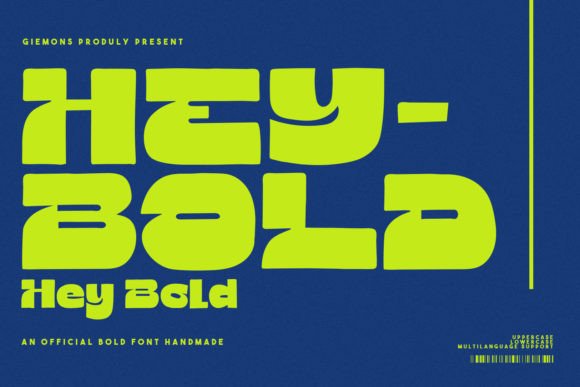
Journey into the world of bold and expressive typography with Hey Bold Font, the ultimate display font designed to captivate and inspire. Created by the renowned Giemons, this font is a visual masterpiece that combines modern aesthetics with playful charm. Its striking and chunky design is guaranteed to command attention, making it the perfect choice for a diverse array of projects.
Immerse yourself in the world of Hey Bold Font, where letters dance with confidence and personality. Its thick and clean lines create a strong and commanding presence, while its geometric shapes and unique curves infuse it with a touch of whimsy and playfulness. This remarkable font is crafted to leave a lasting impression, elevating your designs to new heights of visual appeal.
Unleash your creativity with Hey Bold Font, the perfect companion for a multitude of design endeavors. Create captivating logos that exude strength and boldness, design posters that demand attention, or craft social media graphics that ignite engagement. Its versatility knows no bounds, making it the ideal choice for both personal and professional projects.
Transform your designs into captivating masterpieces with Hey Bold Font. Its bold and chunky design is perfect for creating impactful headlines, eye-catching banners, and standout presentations. Its geometric shapes and unique curves add a touch of character, making it ideal for crafting designs that resonate with your audience.
With Hey Bold Font, you'll discover a font that's more than just a collection of letters; it's an expression of your individuality and creativity. Its powerful and playful nature will inspire you to push the boundaries of design and create works of art that leave a lasting impression. Embrace the boldness of Hey Bold Font and embark on a journey of visual excellence today!